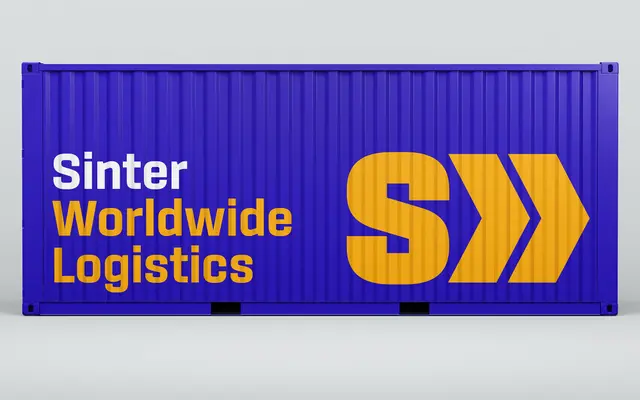
Sinter
A squarish geometric sans with OCR-A-influenced branch angles and a rounded-rectangle skeleton, spanning nine weights for on-screen display use.
Signal cite Georg Trump's City, Hermann Zapf's Melior and Alessandro Butti's Microgramma as the lineage that Sinter continues, taking a rounded-rectangle geometry and refining it for readability on screen. Open counters, unambiguous curves and straight vertical and horizontal strokes make it well suited to display setting, while angled branches reference OCR-A's mechanical character. Eighteen styles cover Thin to Ultra, each with a matching italic, and tabular figures are duplexed across all weights with case-sensitive punctuation and support for over 130 languages.
Built on a rounded rectangle base with ruler-straight vertical and horizontal strokes, open counters, and angled branches referencing OCR-A; firmly geometric with a squarish, technological character akin to City, Melior and Microgramma.